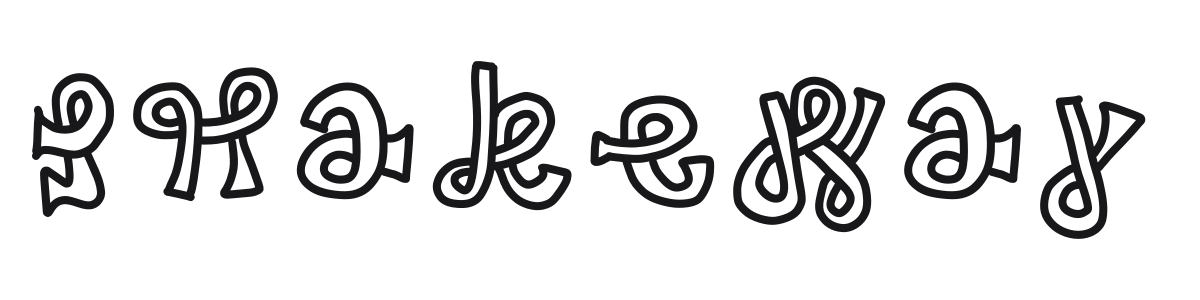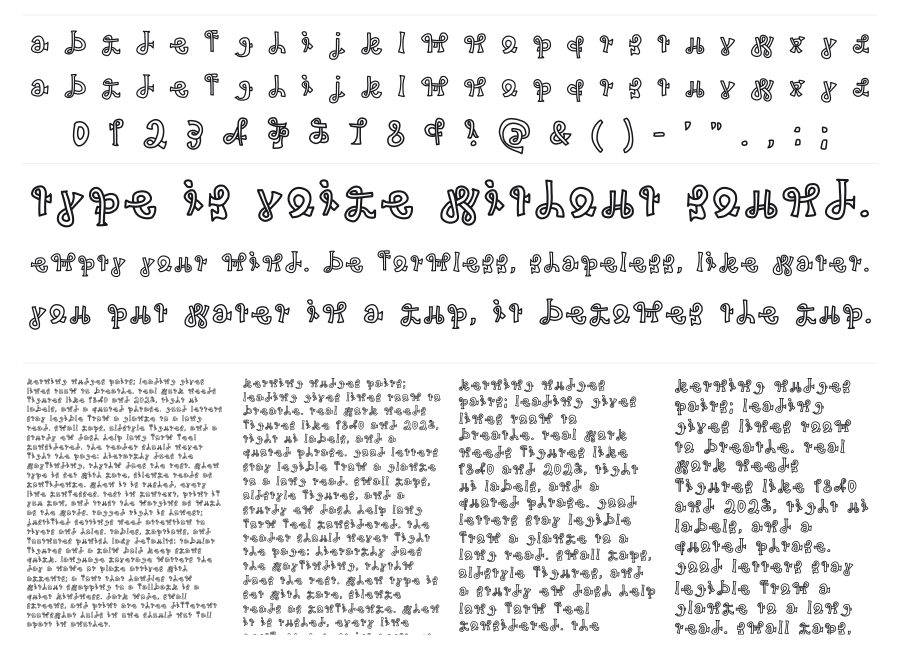
Snakeway
Snakeway is a novelty display font built from fluid, coiling characters that look like an invented fantasy script. Every letter flows through sweeping curves and spiral terminals, rendered in a clean double-stroke inline style. It suits title cards, game interfaces, or any project that needs an otherworldly, handcrafted writing system.